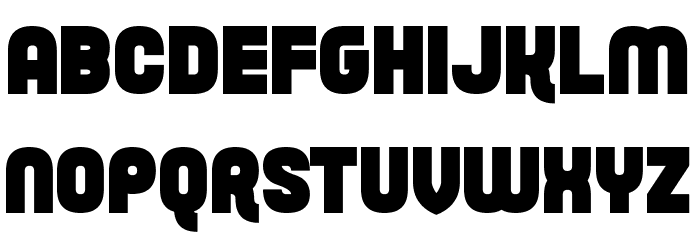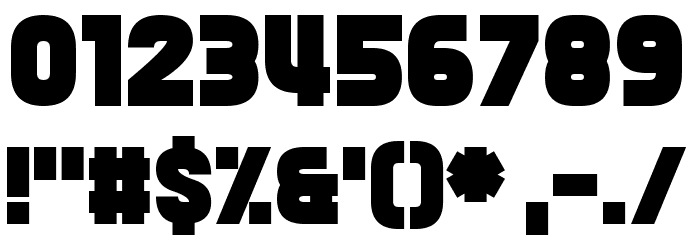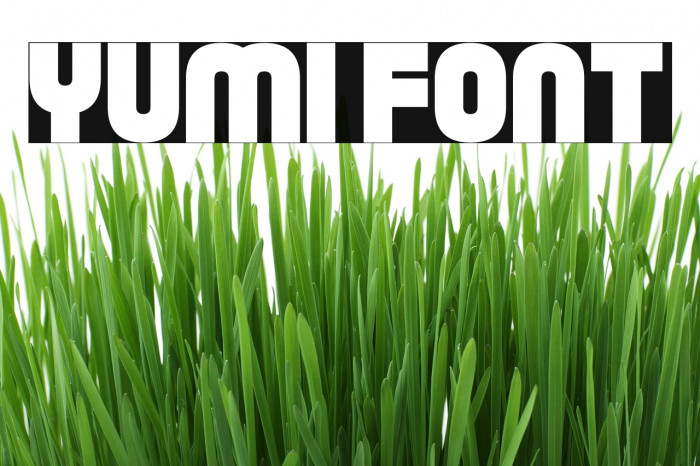
Yumi Font
This bold and impactful font features a strong geometric structure with rounded edges, giving it a modern and approachable feel. The uppercase letters are uniform in height, creating a cohesive look, while the lowercase letters maintain a similar width, ensuring readability. The numbers are bold and consistent with the overall style, making them stand out. Special characters are designed to match the boldness and geometric nature of the font, providing a complete and versatile character set. This font's thick strokes and minimal contrast make it ideal for attention-grabbing designs.
A bold, geometric font with rounded edges and minimal contrast.
- Proposed Projects: Ideal for branding, posters, headlines, and any design requiring a strong visual impact.